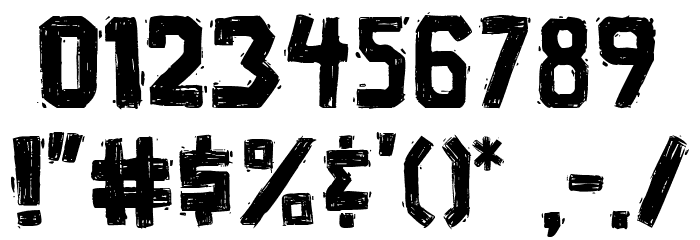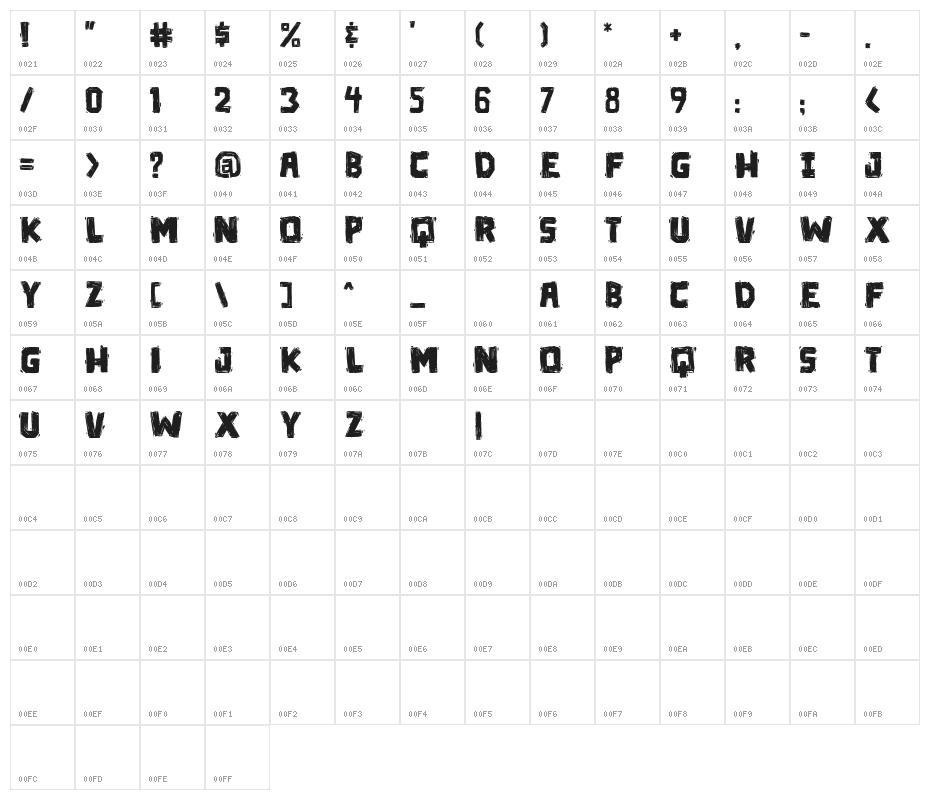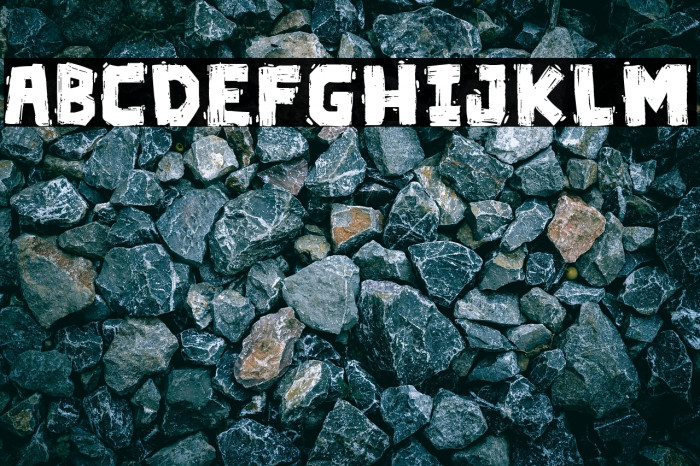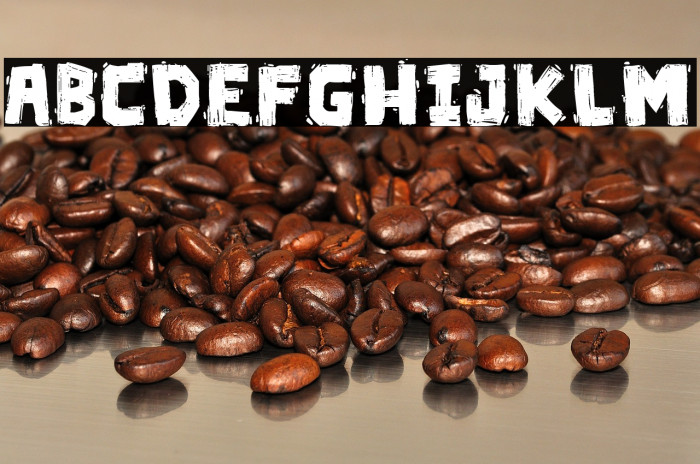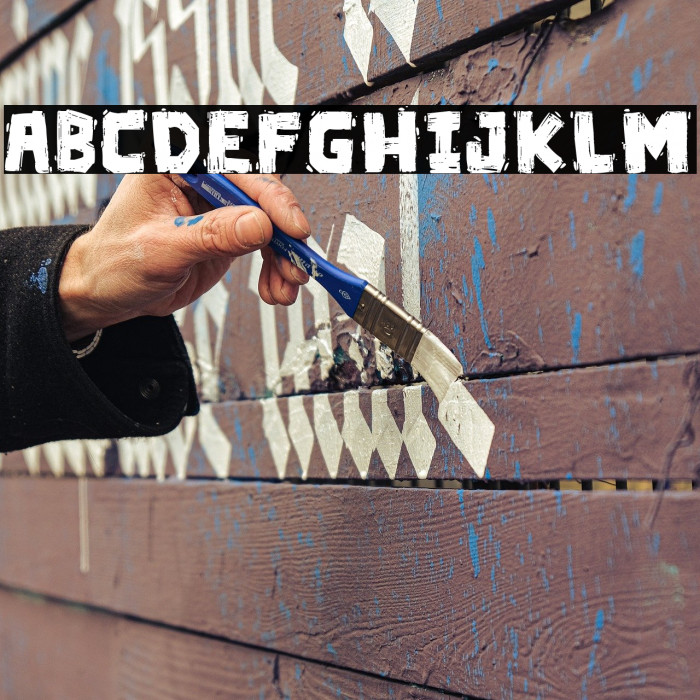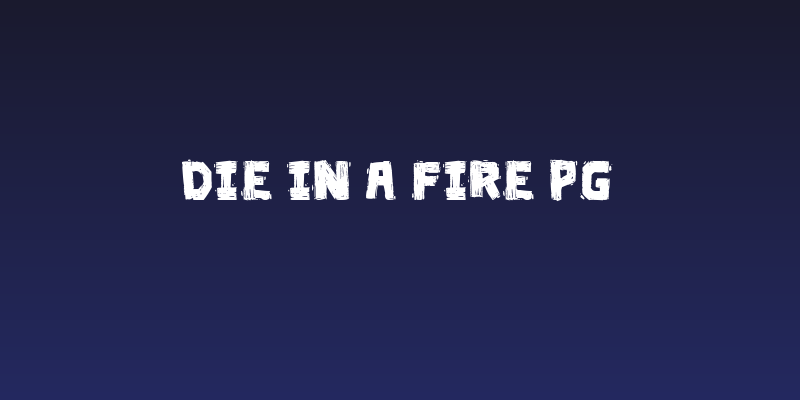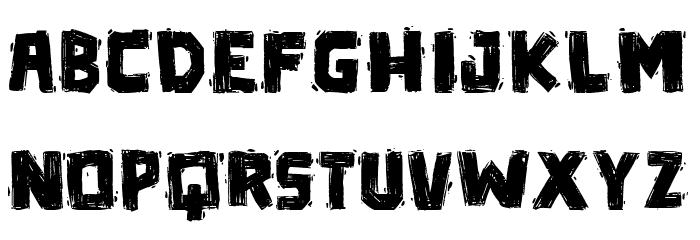
Die in a fire PG Font
Die in a fire PG Description
This font features a distressed, grunge style with a bold and rugged appearance. The characters are heavily textured, giving the impression of being worn or eroded over time. The uppercase and lowercase letters maintain a consistent design, with sharp edges and irregular strokes that add to the chaotic aesthetic. Numbers and special characters follow the same distressed theme, ensuring a cohesive look across all glyphs. This font is ideal for projects that require a raw, edgy feel, such as music album covers, posters, or any design that aims to convey a sense of rebellion or nonconformity.
| Overall Style | Grunge, Edgy, Distressed |
| Use Case | Headlines, Posters, Album Covers |
| Proposed Projects | Ideal for music album covers, rebellious posters, and edgy branding materials. |